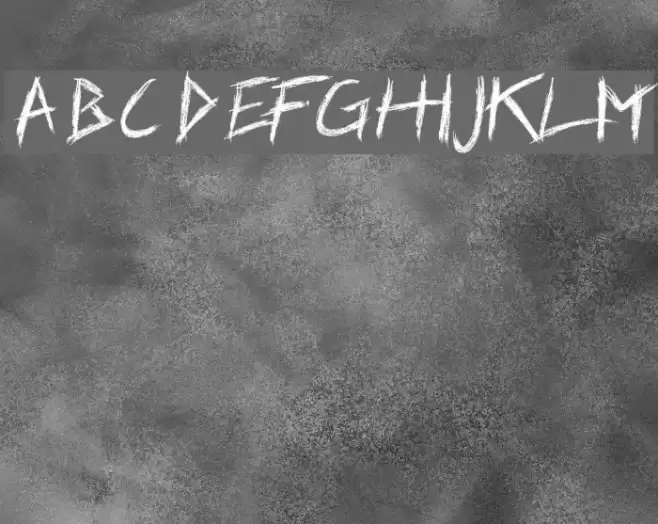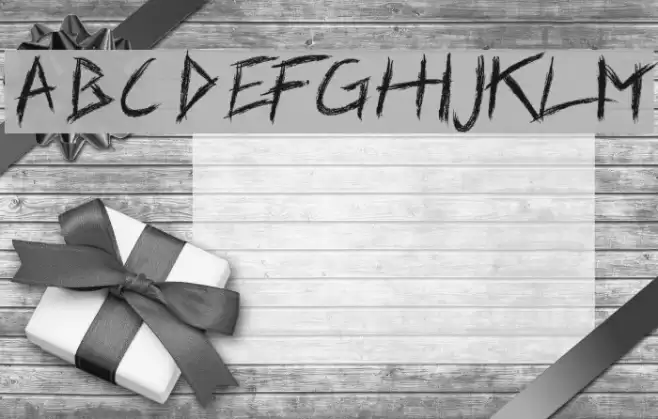
Dear Zebra Font
Dear Zebra Description
This font features a dynamic, hand-drawn style with a rough, textured appearance that mimics the look of brush strokes. The uppercase letters are bold and expressive, with varying line thicknesses that add a sense of movement and energy. The lowercase letters maintain this lively aesthetic, providing a cohesive look across the alphabet. Numbers and special characters are designed with the same artistic flair, making them stand out with their unique, handcrafted feel. This font is perfect for projects that require a personal touch or an artistic edge.
A dynamic, hand-drawn font with a textured, brush-like appearance from Uncategorized fonts.
- Proposed Projects: Ideal for artistic projects, branding, posters, and invitations that require a personal, handcrafted touch.